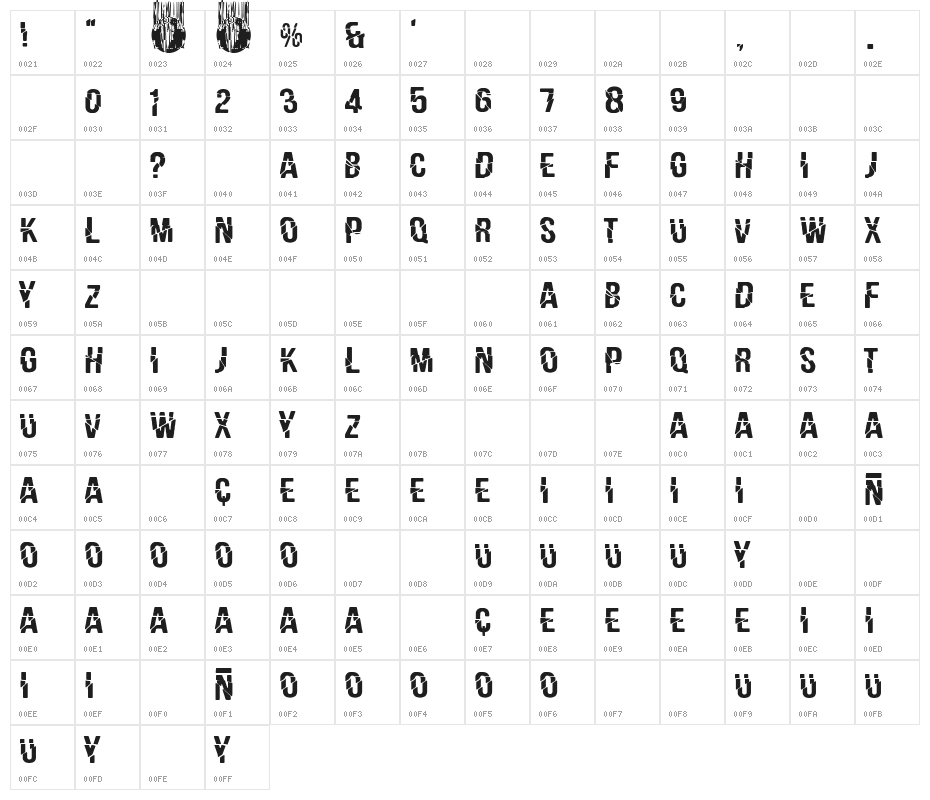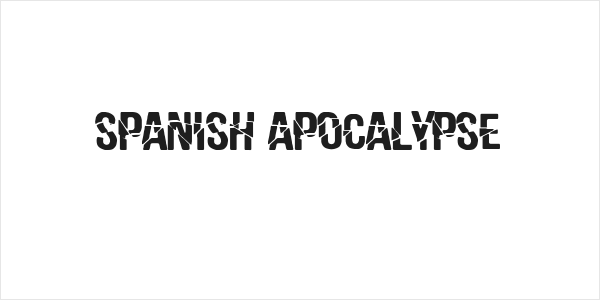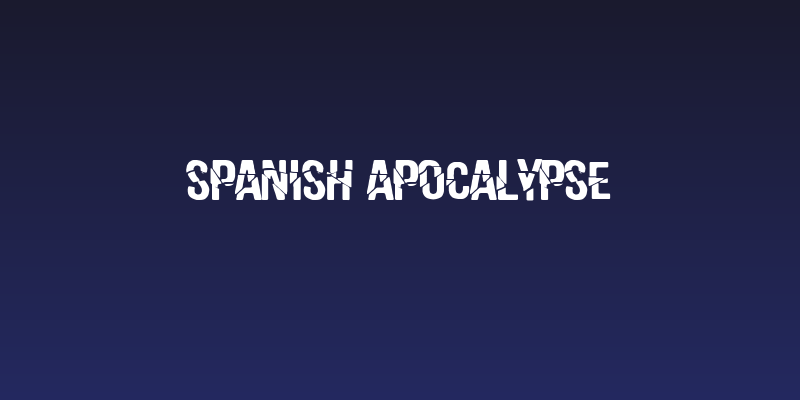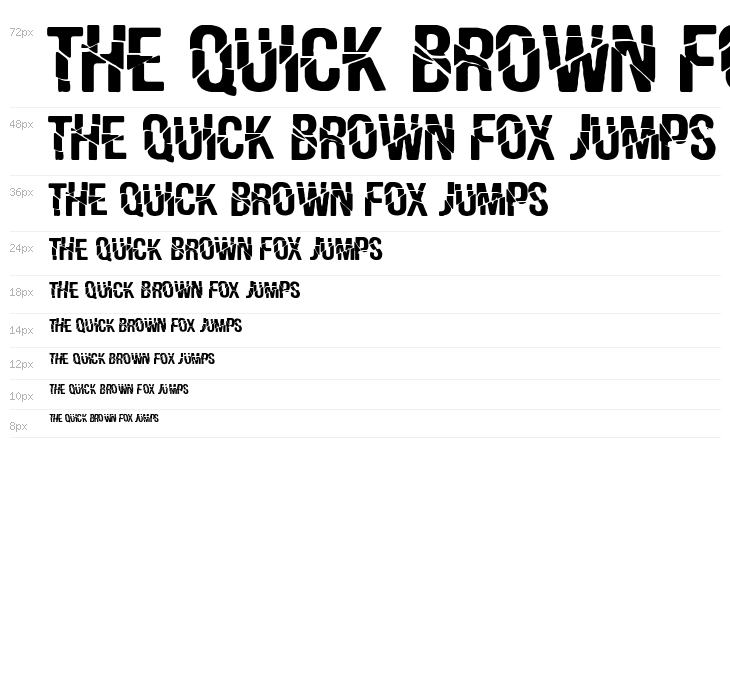
SPANISH APOCALYPSE Font
SPANISH APOCALYPSE Description
This font features a bold, impactful design with a distressed, fragmented appearance. Each character is uniquely styled with cuts and breaks, giving it a rugged and edgy look. The uppercase letters are strong and commanding, while the numbers and special characters maintain the same broken aesthetic. This style is reminiscent of a post-apocalyptic or industrial theme, making it ideal for projects that require a dramatic and unconventional typeface. The font's overall presence is striking and memorable, suitable for creating a sense of urgency or intensity.
| Overall Style | Decorative, Industrial, Edgy |
| Proposed Projects | Ideal for movie posters, video game titles, event flyers, or any design requiring a dramatic and edgy typeface. |